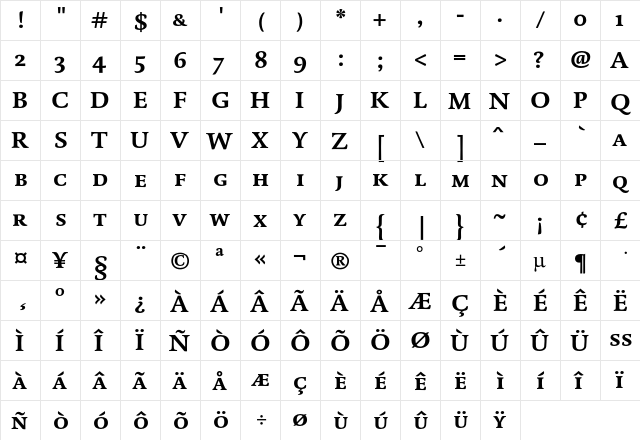
DTL Dorian T Caps Bold
| Style | T Caps Bold |
Design Context for DTL Dorian Typeface
DTL Dorian offers clean, dependable letterforms without strong stylistic allegiance, making it a practical choice for designers who need flexibility. The heavy weight commands attention and anchors typographic hierarchies.